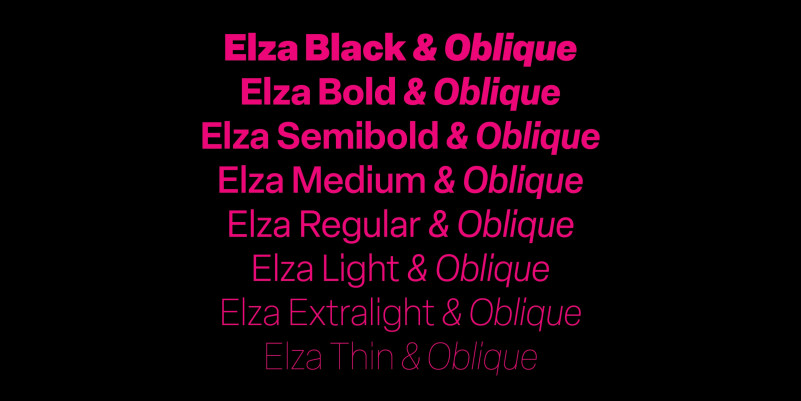
Elza Font
Elza Sans Serif Font Family,  is a typeface that fulfills the intention of creating a typographic family without any personal traits or recognizable characteristics. It offers an oblique version rather than true italics, as well as much more condensed weights than the corresponding roman versions, for a result that stands out much better when used together. This is the largest family in the Blackletra library to date, with 8 weights, 3 widths and 2 optical sizes, for a total of 58 fonts. Each font is approximately 900 glyphs long and provides strong language compatibility, through OpenType features such as small caps, tabular and old numerals, and an alternate character for lowercase /a (one level).